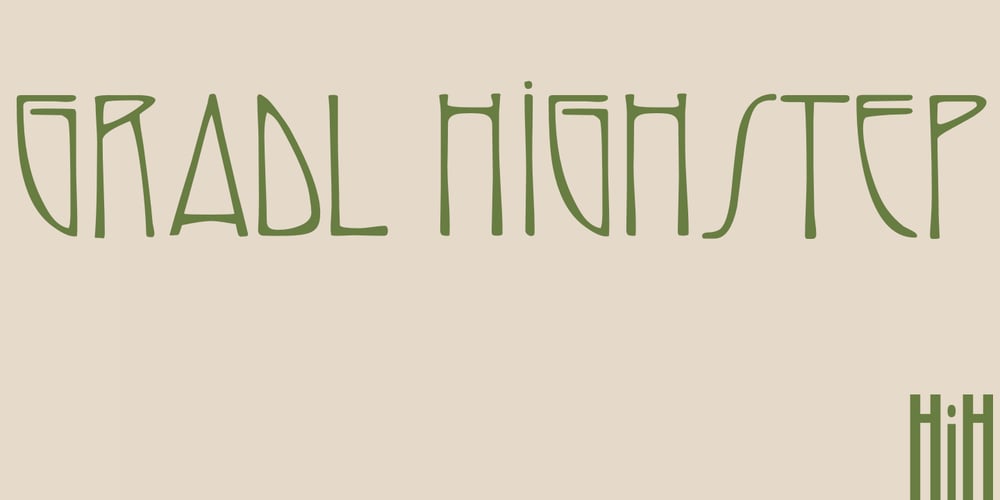
Gradl Highstep Font Family was designed by M.J. Gradl and published by HiH. Gradl Highstep contains 2 styles and family package options. Gradl Highstep is an archetypical Art Nouveau face by the prolific and mysterious Max Joseph Gradl. It epitomizes the visual language of elegance and sophistication. It seems strange that so little information is available today about Max Gradl: He seems to have been well known in his day. In addition to his jewelry design, he did advertising work for customers in Naples, London and New York in addition to customers in cities all over Germany. Gradl Highstep is an all-cap font with a wide range of ligatures: 094=SA, 123=CH, 125=CK, 126=TS, 167=FA, 172=PA, 177=TA, 188=WA and 190=YA. In addtion, 137=Gradl’s dated monogram “MJG 1903,” 175=LLC abbreviation, 181=alternate S. This is a subtle font with thin, variable strokes. It is best used at 28 points and larger to give it the presence it needs to be be appreciated. Gradl Highstep Initials is a companion font, incorporating a deft line drawing of a fashionable woman of the period who is every bit as elegant as the underlying font.